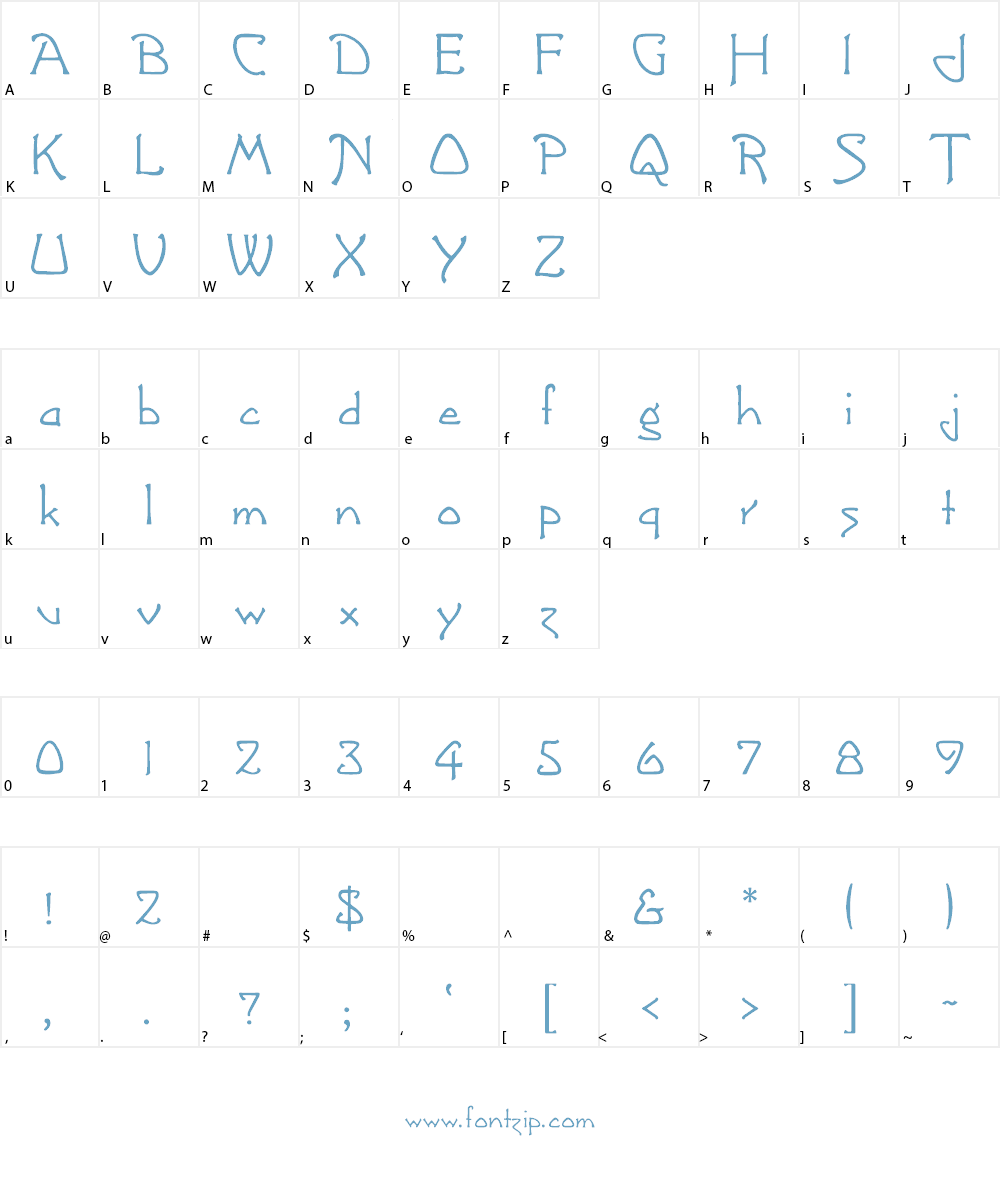
Greetings is my version of a similarly named typeface, called Greeting
Monotone. Greetings has the look of fancy hand lettering. I fell in
love with this typeface when I first saw it used on the cover of the
1983 album, "The Present" by the Moody Blues. This font has many uses
including: ads, newsletters, display headlines, etc. This typeface